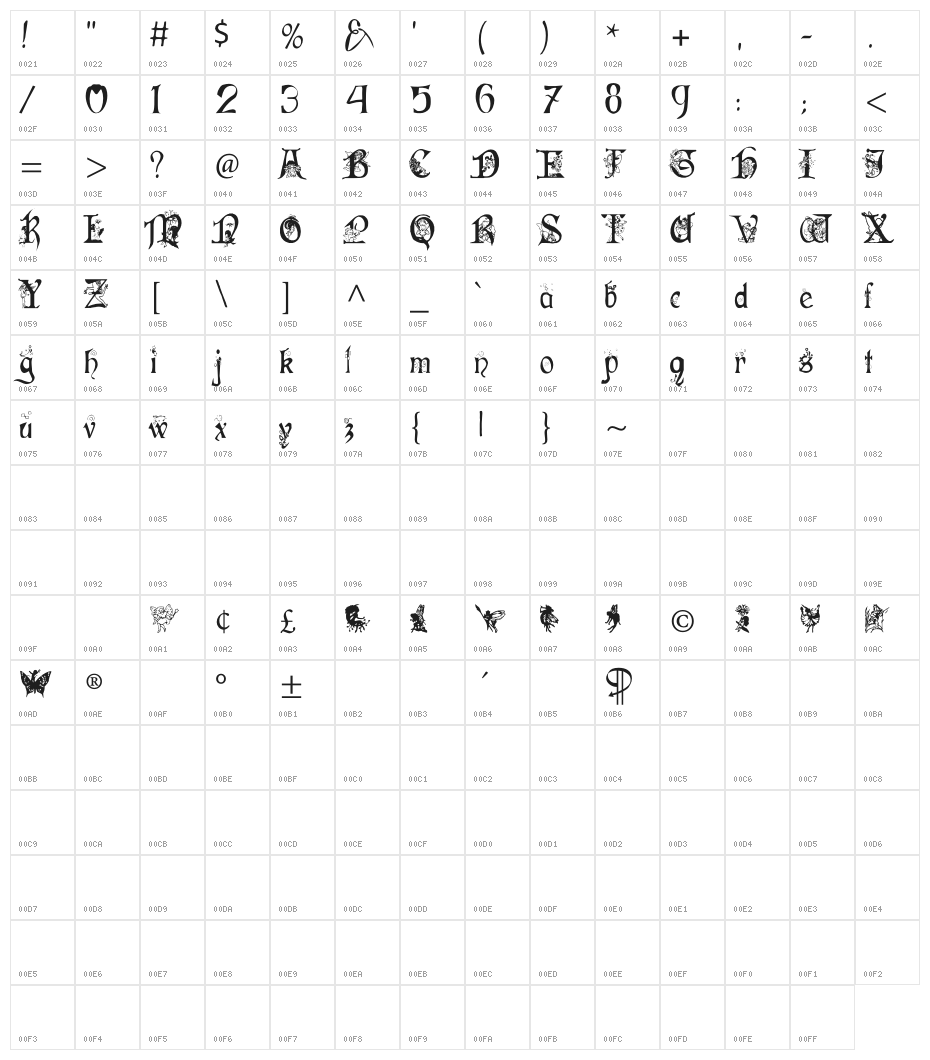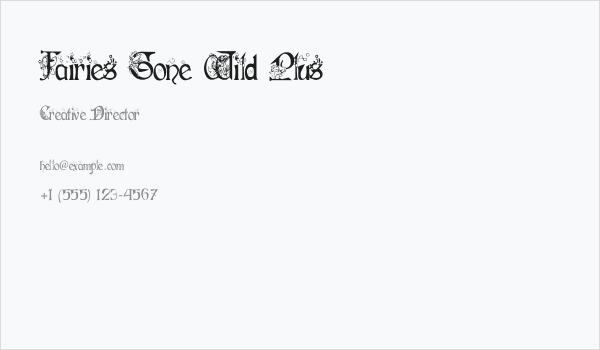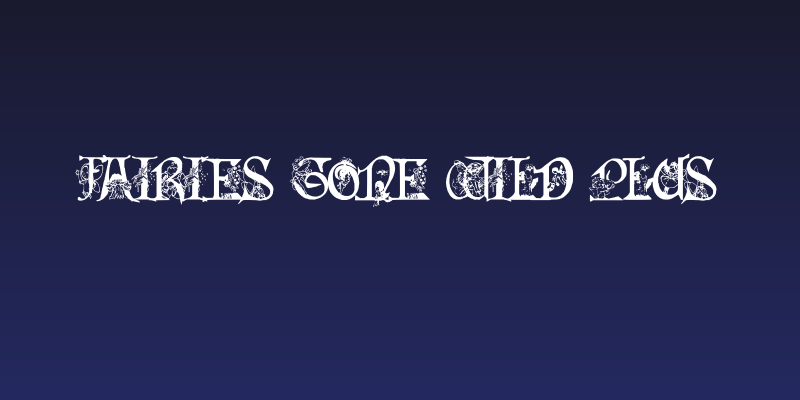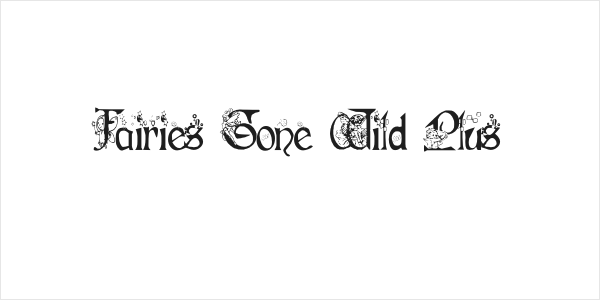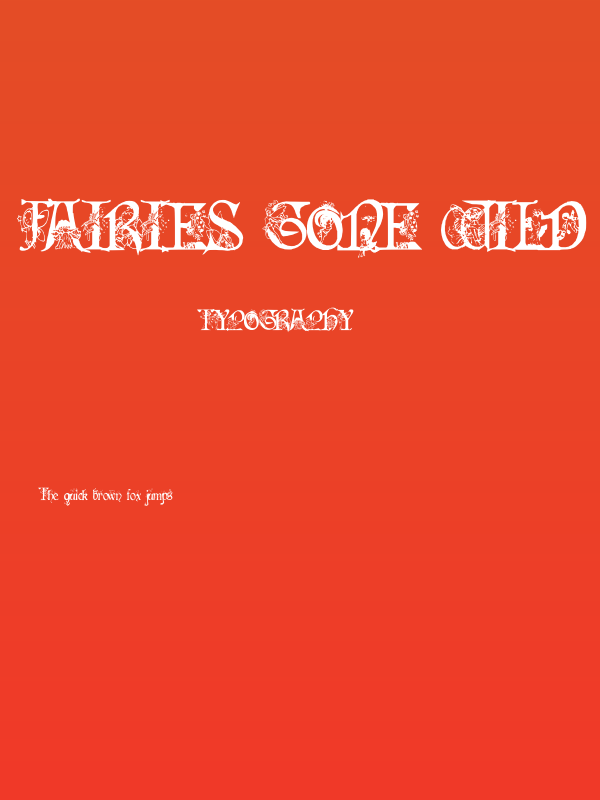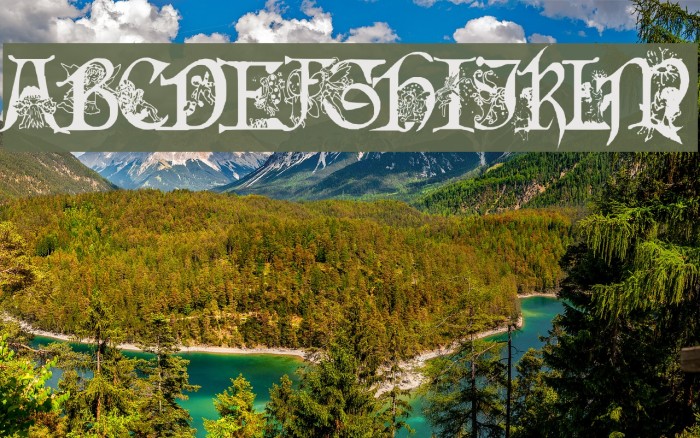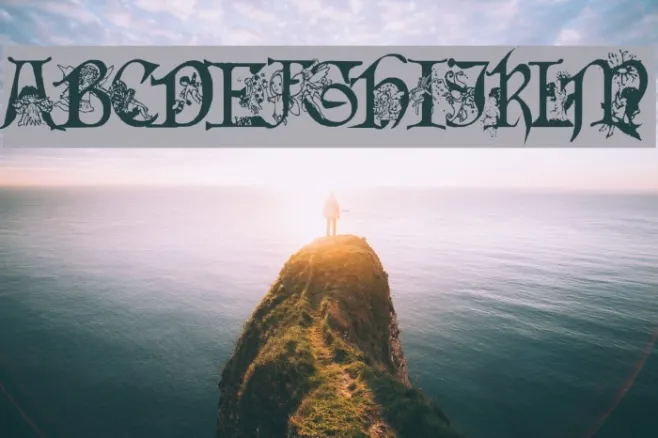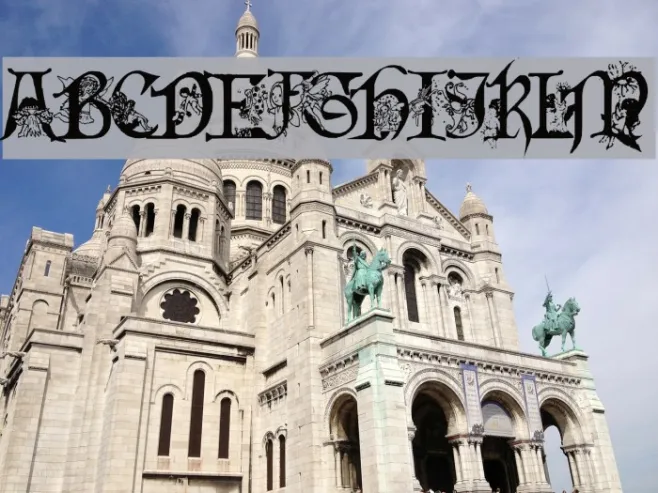
Fairies Gone Wild Plus Font
Fairies Gone Wild Plus Description
This font is a whimsical and decorative typeface that features intricate fairy and nature-inspired designs integrated into each character. The uppercase letters are adorned with detailed illustrations of fairies, flowers, and vines, creating a magical and enchanting appearance. The lowercase letters maintain a playful and artistic style, with swirling elements and organic shapes. The numerals and special characters continue the theme with bold, imaginative designs that capture the essence of fantasy and creativity. This font is perfect for projects that require a touch of magic and wonder.
| Proposed Projects | Ideal for fantasy-themed invitations, children's book covers, magical event posters, and whimsical branding. |